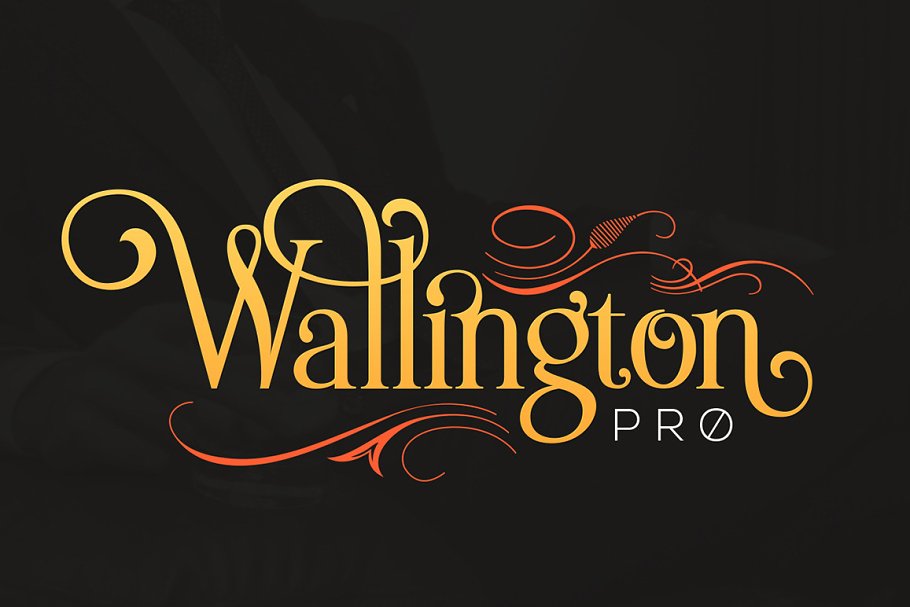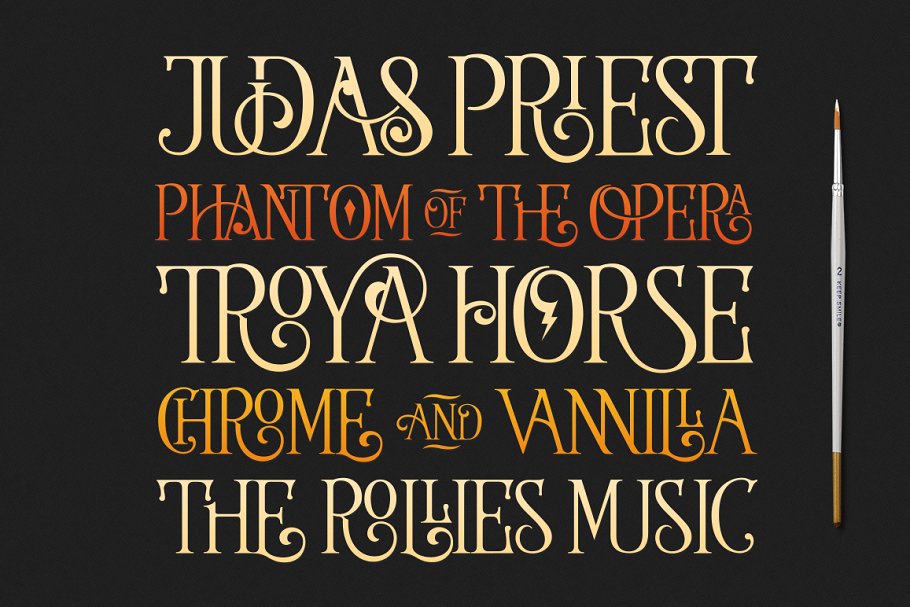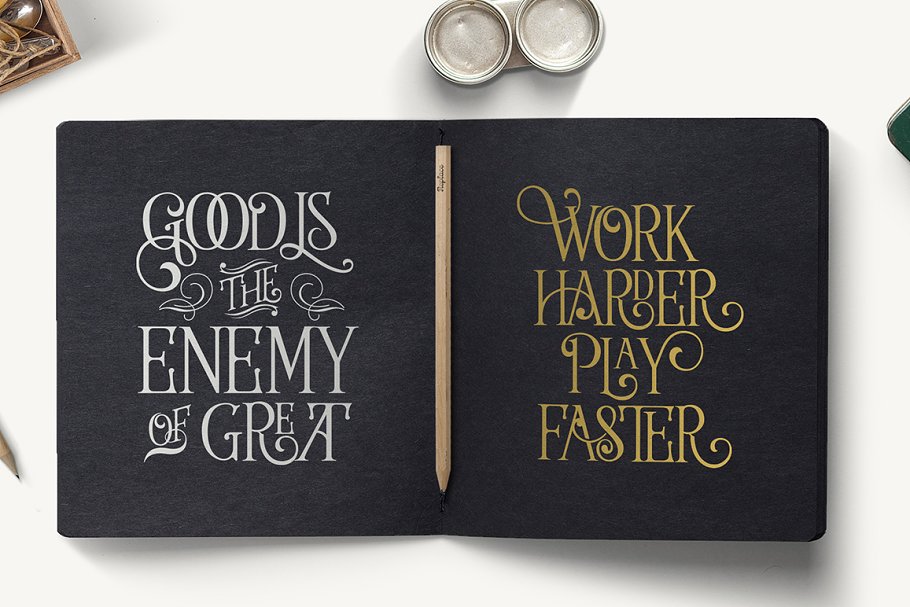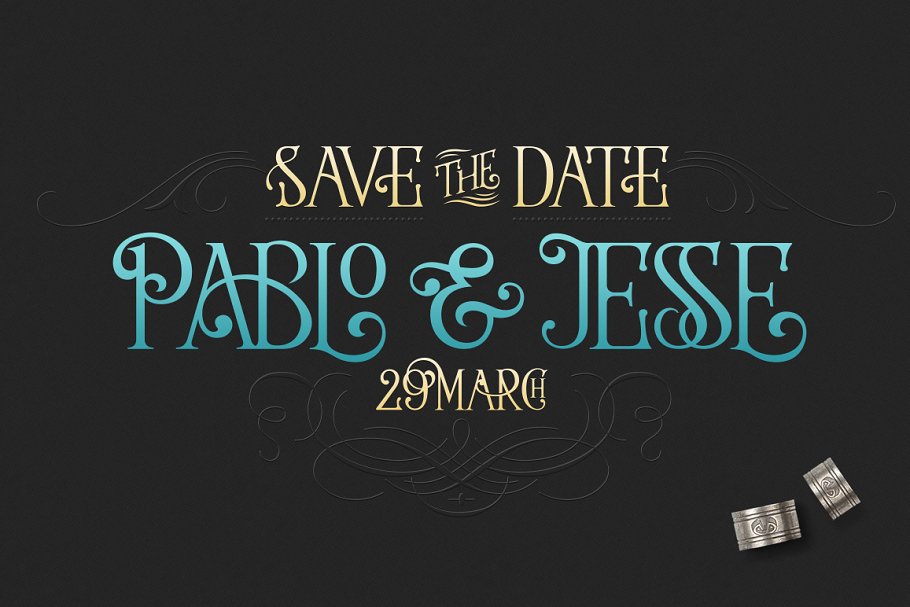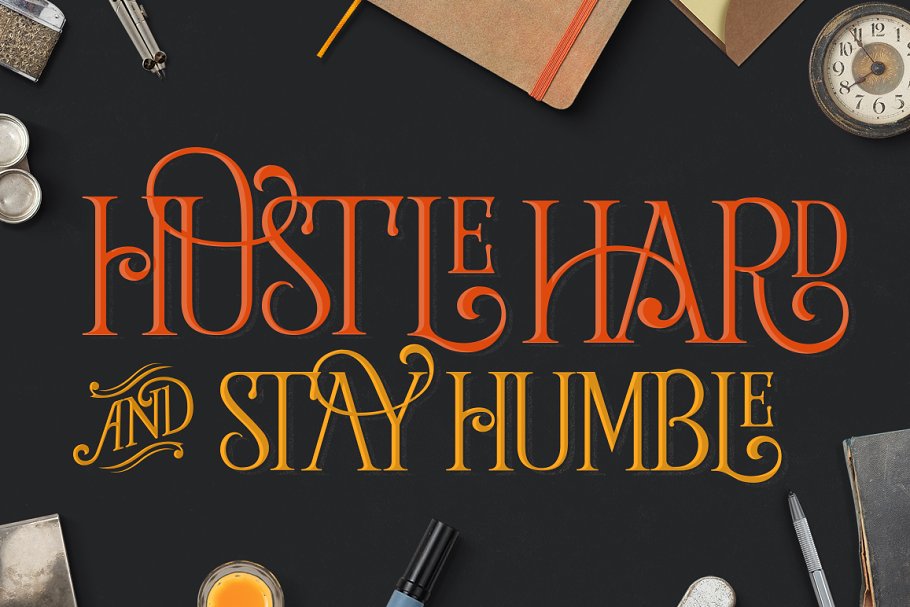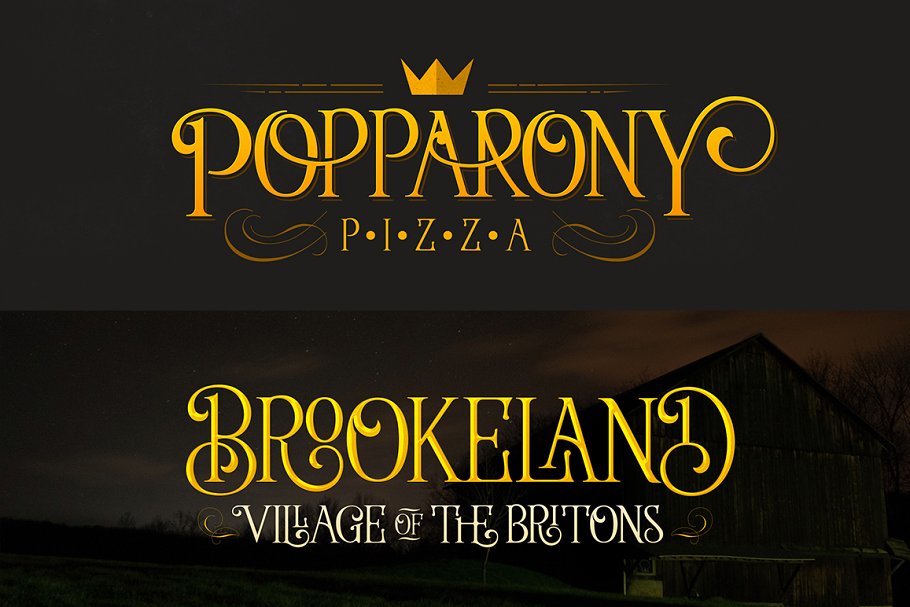
About the The Wallington Pro Font
Wallington Pro is a decorative-serif font embodying vintage and elegant curves with functional structure, Style is adopted from Old English cultures with their descendants around mid-12th century and Art nouveau in 19th century, it was inspired by natural forms and structures and the curved lines, Crafted with love and easy-to-read letter design
Wallington Pro consists of 721 glyphs including 268 unique ligatures, 30+ catchwords and 10 stylistic sets, All glyphs are divided into several OpenType features such as Ligatures, Contextual alternates, Old Style Numeric and some astonishing special characters that allows you to mix and match pairs of letters to fit your design
This variety encourages unusual and extroverted creation in lettering design, The typeface offers numerous combination possibilities between the basic glyph set and stylistic sets, The stylistic sets are alternate alphabets that you can access by using OpenType savvy programs such as Adobe Illustrator, Adobe Photoshop CC, Affinity Designer, CorelDraw or Adobe InDesign